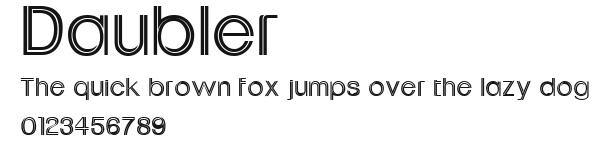
• Font Name: Daubler
• Full Font Name: Daubler Normal
About Daubler.ttf
Daubler.ttf is a modern, elegant sans-serif font designed for ultimate readability and visual harmony. Perfect for branding, headlines, web design, and print materials.